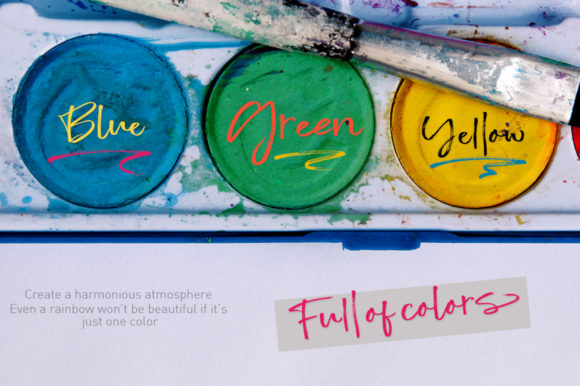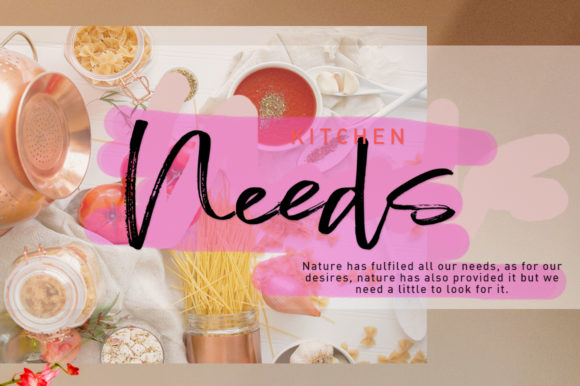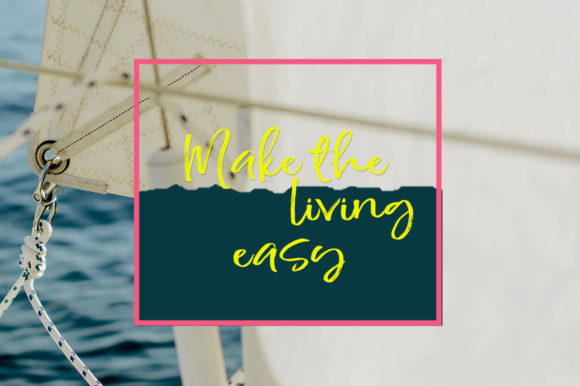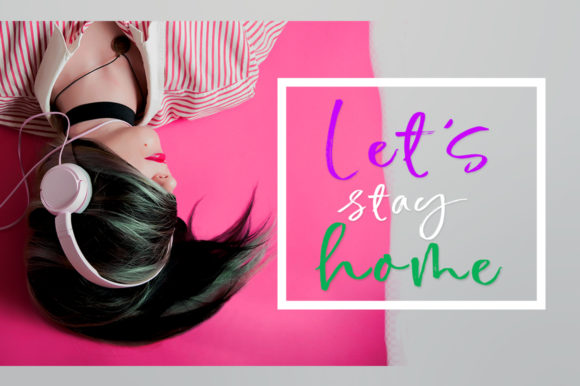
Introduction to Sapodilla Font
Remember that moment when you stumbled upon the perfect font for your DIY project? For designers, it’s like finding a needle in a haystack, but with a much sweeter reward. The right font can elevate your work from ordinary to extraordinary, making it truly special.
Meet the Sapodilla Font, a stunning result of a brush pen and pencil pairing that exudes an authentic charm. Its endearing and high-quality design makes it a perfect fit for any creative project. With its transparent background, this design resource is ideal for backgrounds, overlays, or even standalone designs.
Key Features of Sapodilla Font
- High-quality font with a transparent background, ideal for creative projects that require a touch of elegance.
- Includes a range of font sizes and resolutions, including 300 DPI and 600 DPI, to cater to different design needs.
- Unique characteristics include a modern, minimalist aesthetic and a wide range of language support, including Latin, Cyrillic, and Greek.
- Designed to be versatile and adaptable, making it suitable for various design applications, from logos and branding to digital products and publications.
- Part of a larger collection of high-quality fonts, offering designers a wealth of creative possibilities for their projects.
Honest Review: Sapodilla Font
I recently had the chance to work with the Sapodilla Font, and I must say, it’s been a solid addition to my design resource arsenal. As a designer, I appreciate high-quality fonts that can elevate my creative projects, and Sapodilla Font certainly delivers.
One of the standout features of this font is its transparent background, which allows for seamless integration with any design. I’ve used it for various projects, from brochures to social media graphics, and it’s been a game-changer.
- ✨ High-quality design that’s perfect for print and digital projects
- ✨ Transparent background for easy integration with other design elements
- ⚠️ Limited character set, which can be a challenge for more complex designs
- ⚠️ Not ideal for projects that require a lot of bold or italic text
Overall, I’m impressed with the Sapodilla Font and would definitely recommend it to fellow designers. It’s a great addition to any design resource collection, and its high-quality design and transparent background make it a versatile choice for a wide range of creative projects.
Tips for Getting the Most Out of Sapodilla Font
For best results, use the Sapodilla Font on a high-quality, transparent background to create a clean and modern design. You can also experiment with different font sizes, colors, and styles to create a unique and creative look. Additionally, use the font in conjunction with other design resources, such as images and graphics, to add depth and interest to your project.